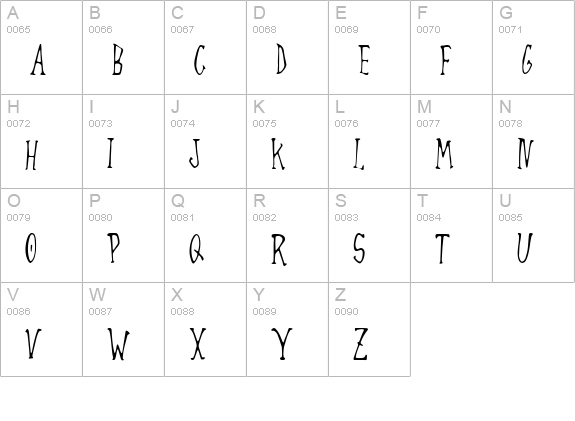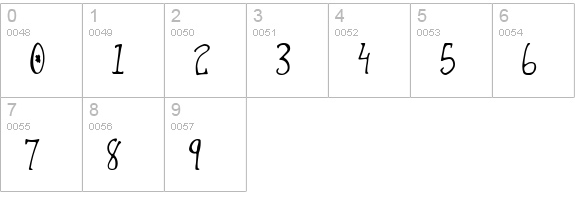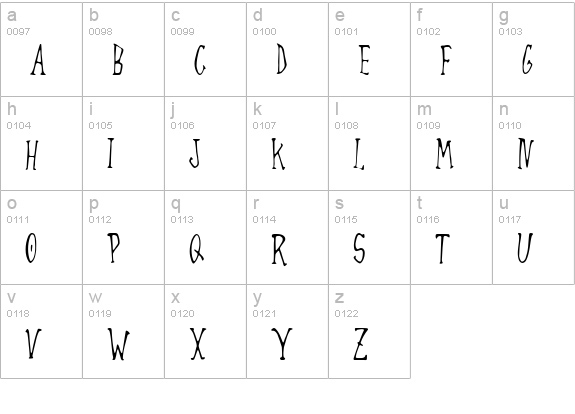
Always Joking Font Details
Introducing Always Joking font - a playful and whimsical typeface that is sure to bring a smile to your designs! This font is perfect for adding a touch of humor and lightheartedness to any project. With its quirky and fun style, Always Joking is ideal for creating eye-catching headlines, greeting cards, posters, and more. The best part about Always Joking font is that it is completely free to download at FontsMarket.com! Yes, you read that right - you can have this delightful font at your fingertips without spending a dime. So go ahead, unleash your creativity and spread some joy with the charming Always Joking font.